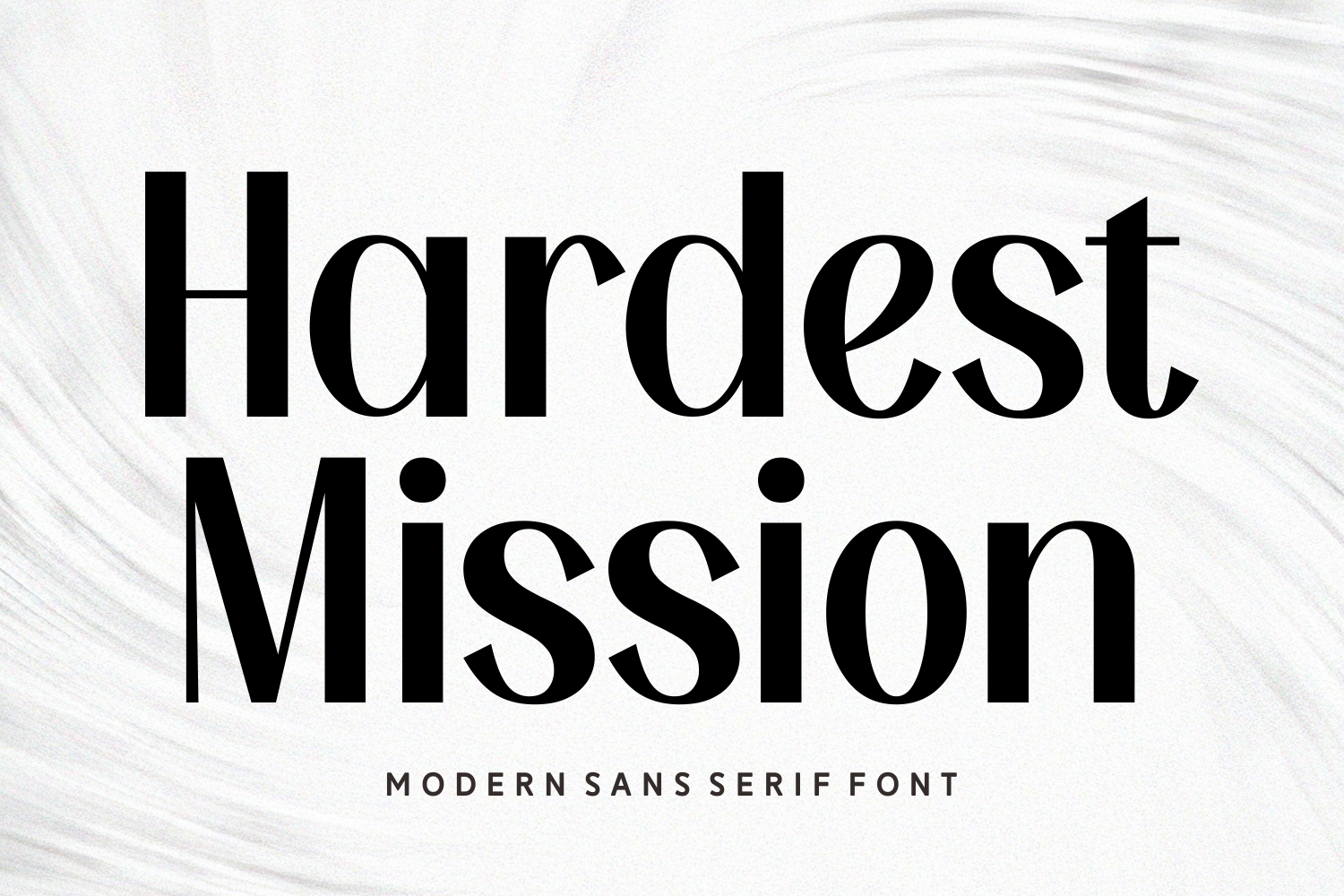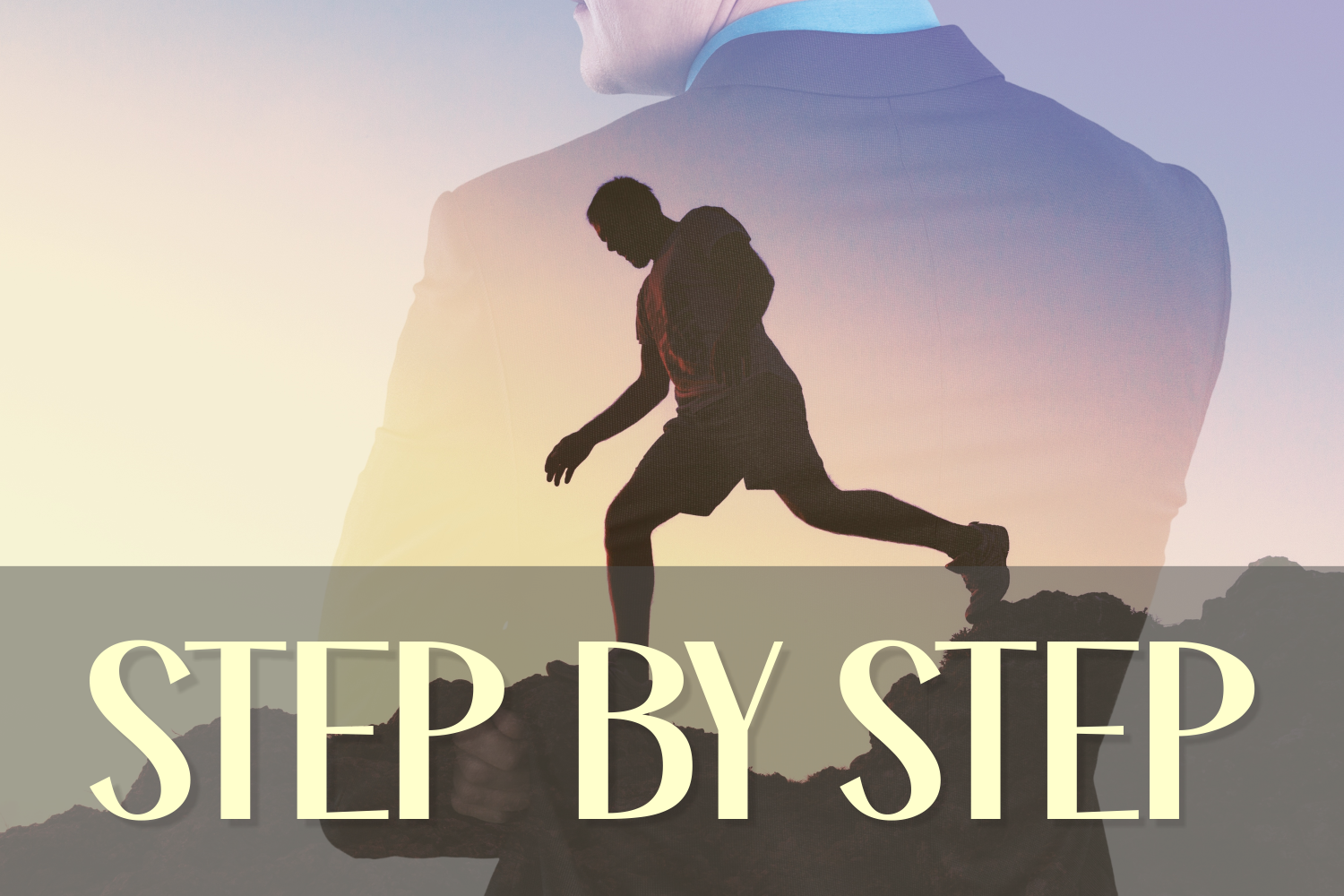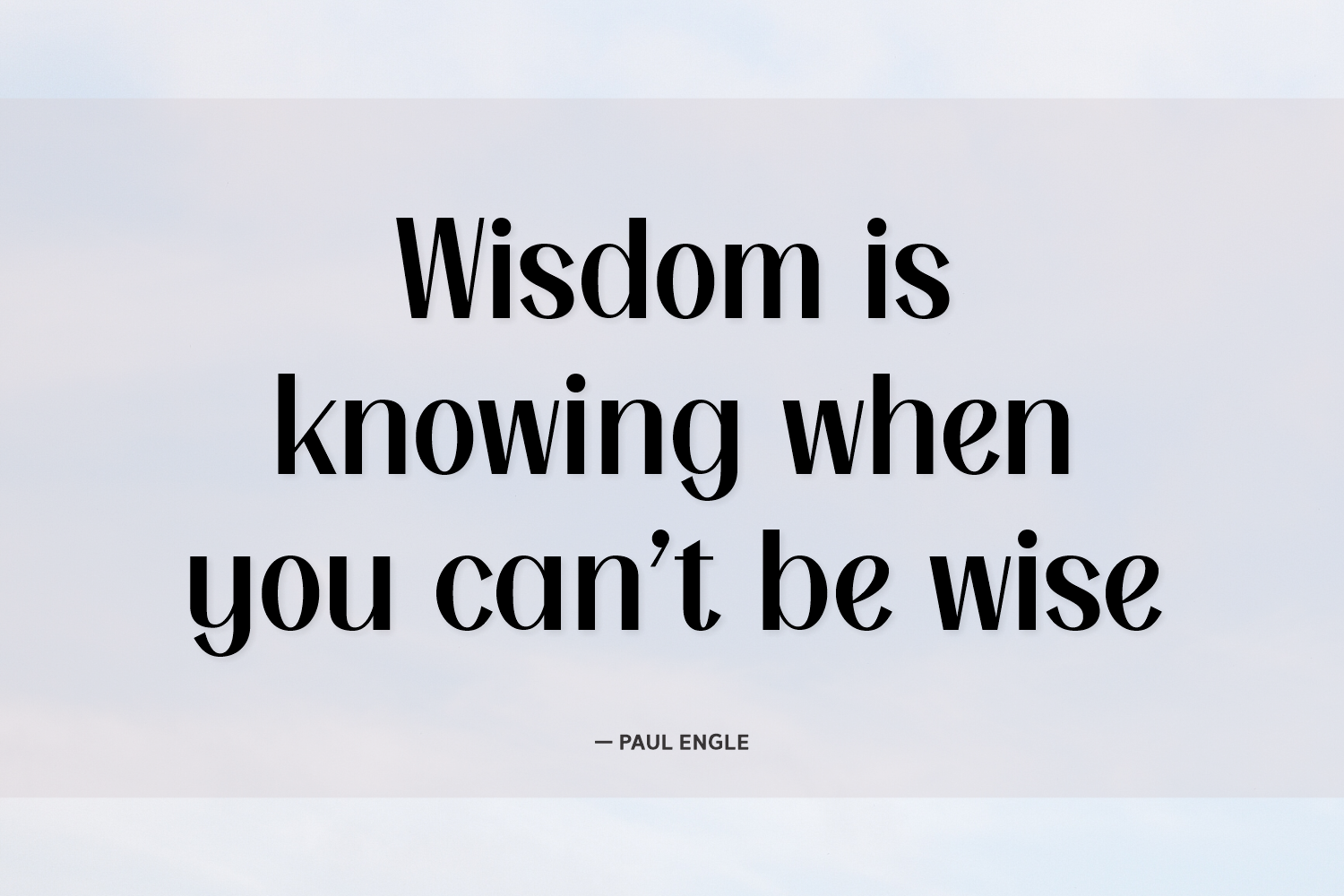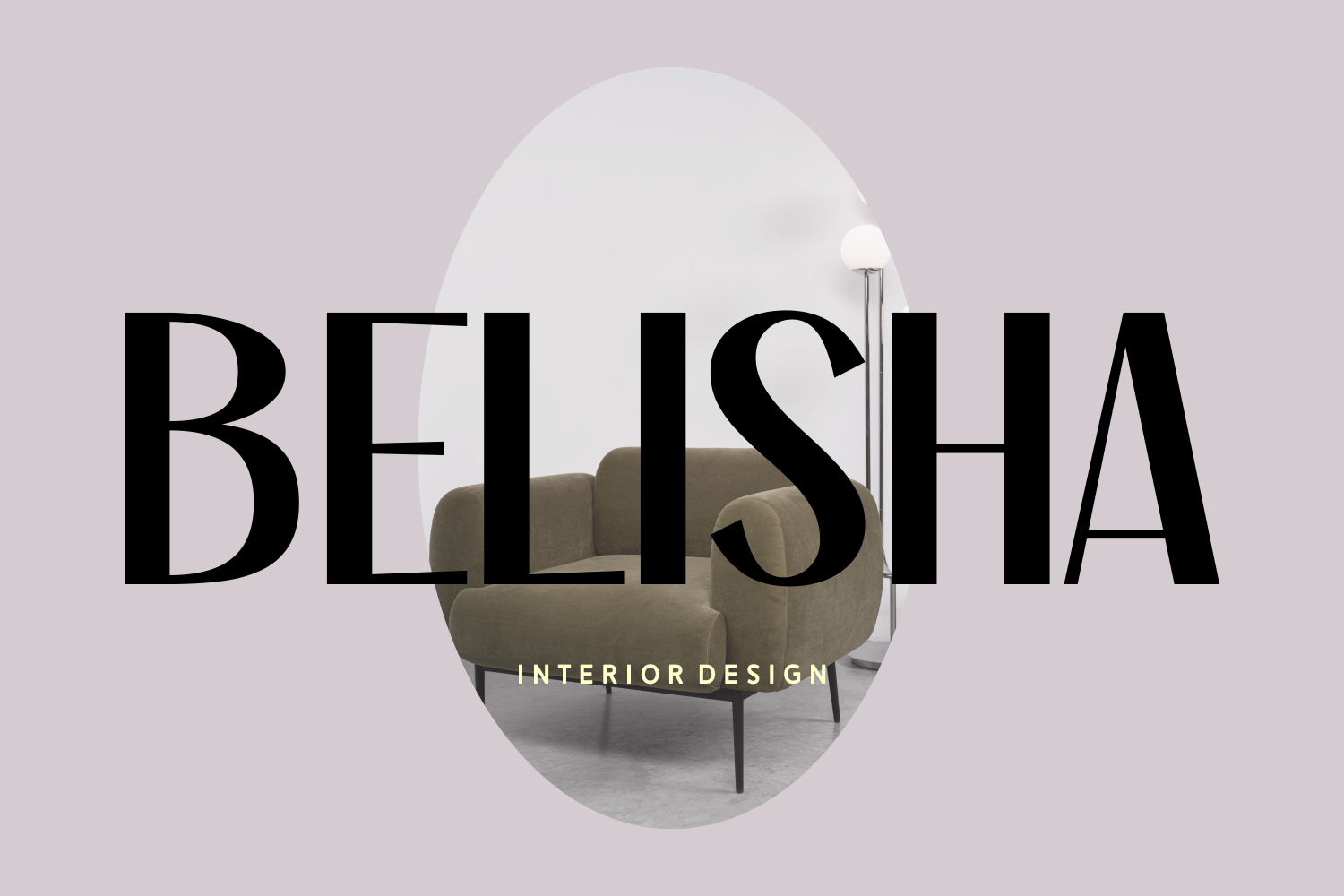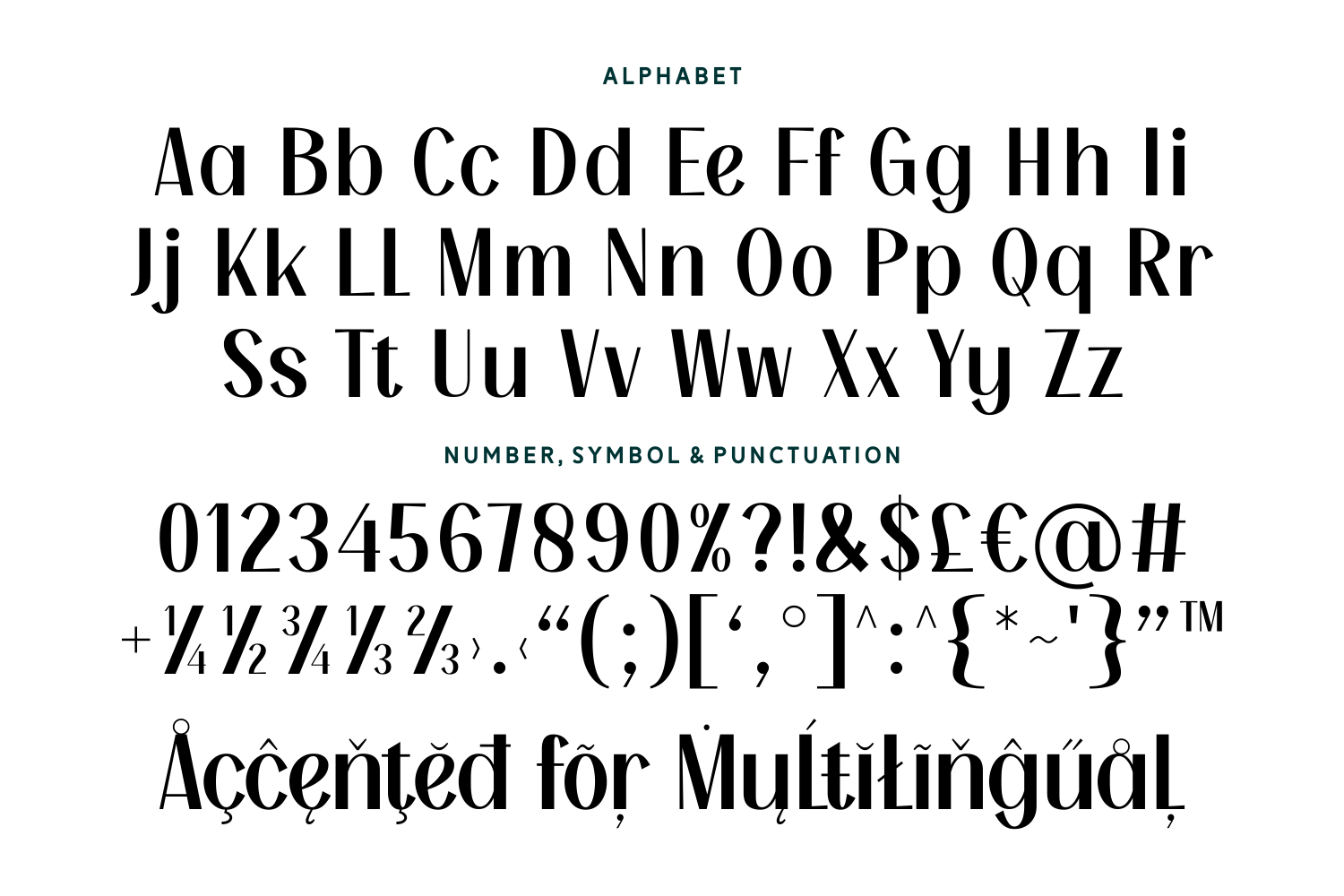
Hardest Mission
Hardest Mission is a modern sans serif typeface with high contrast strokes and sleek curves, giving it a luxurious yet contemporary edge. It’s perfect for magazine titles, high-end branding, and sophisticated advertising.